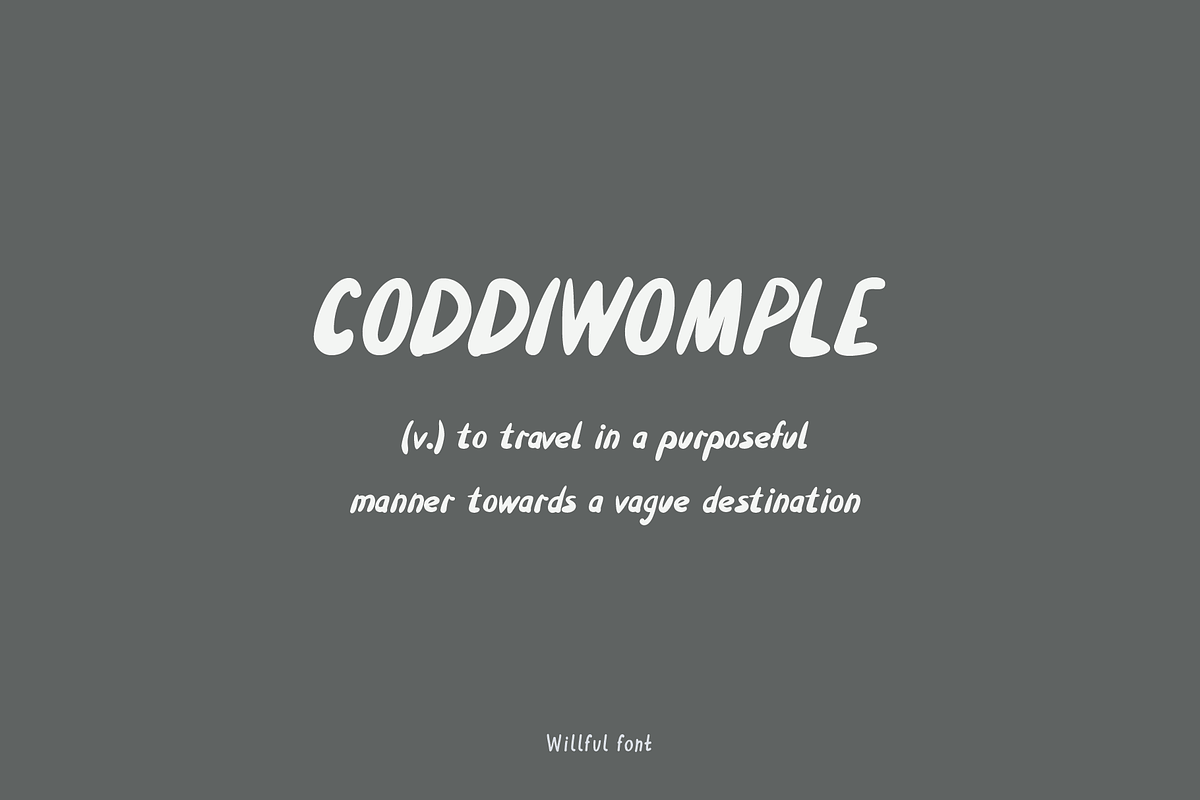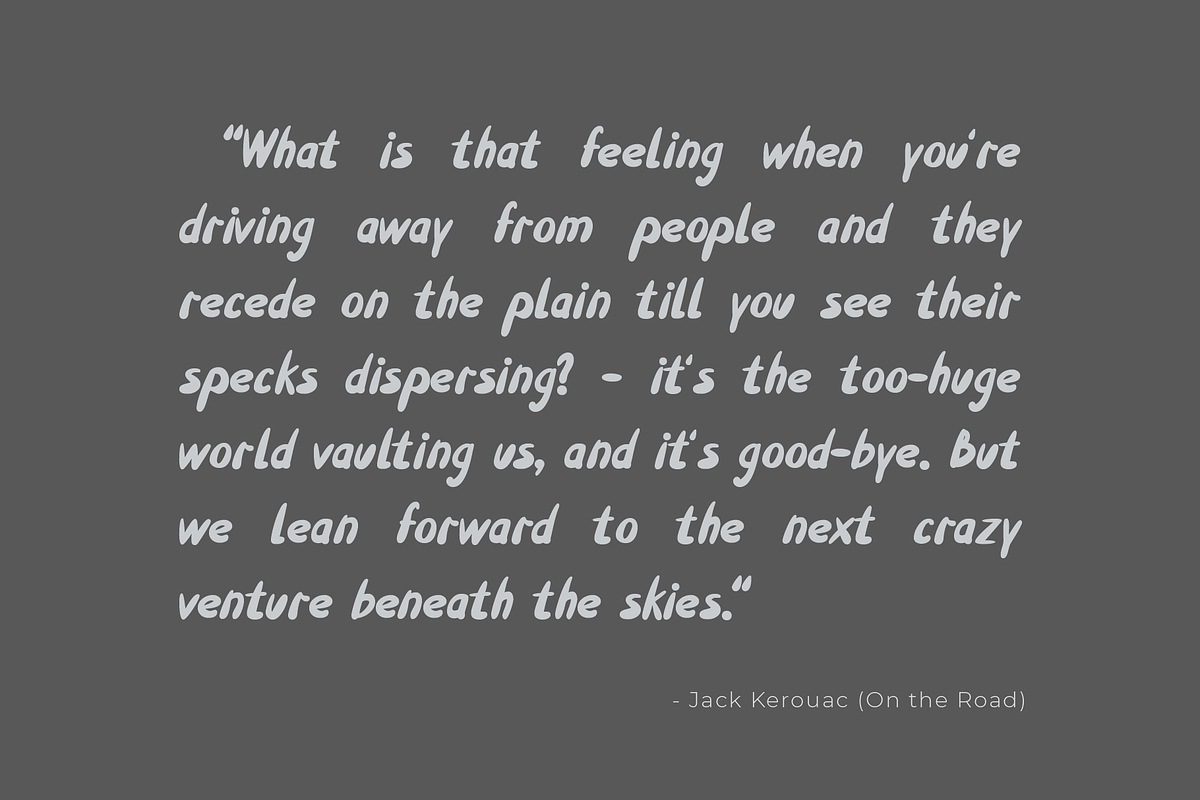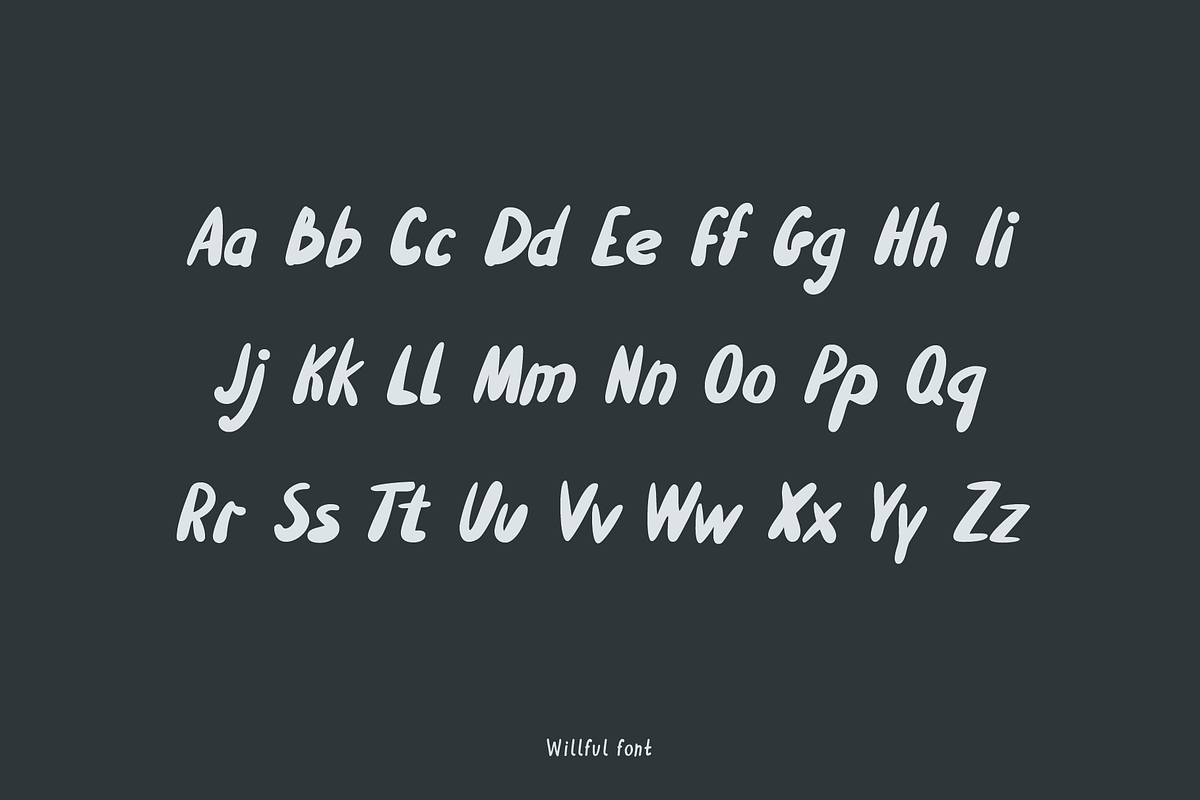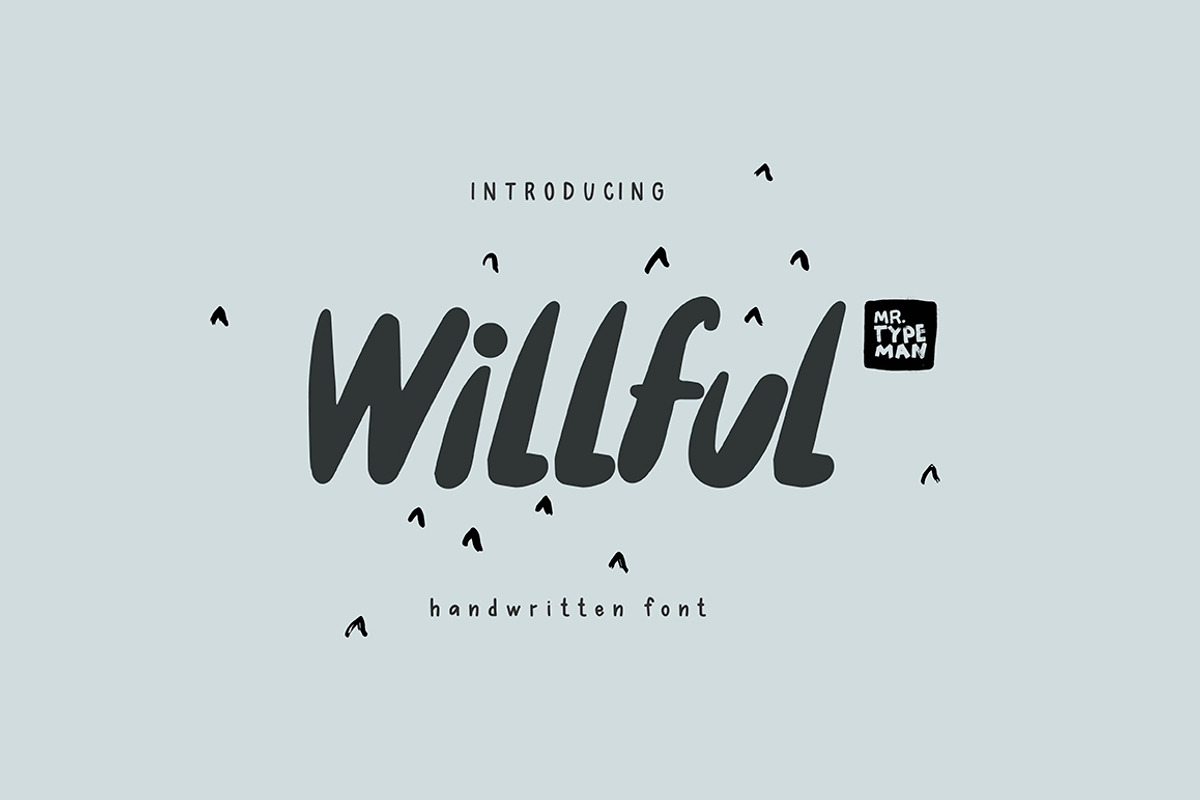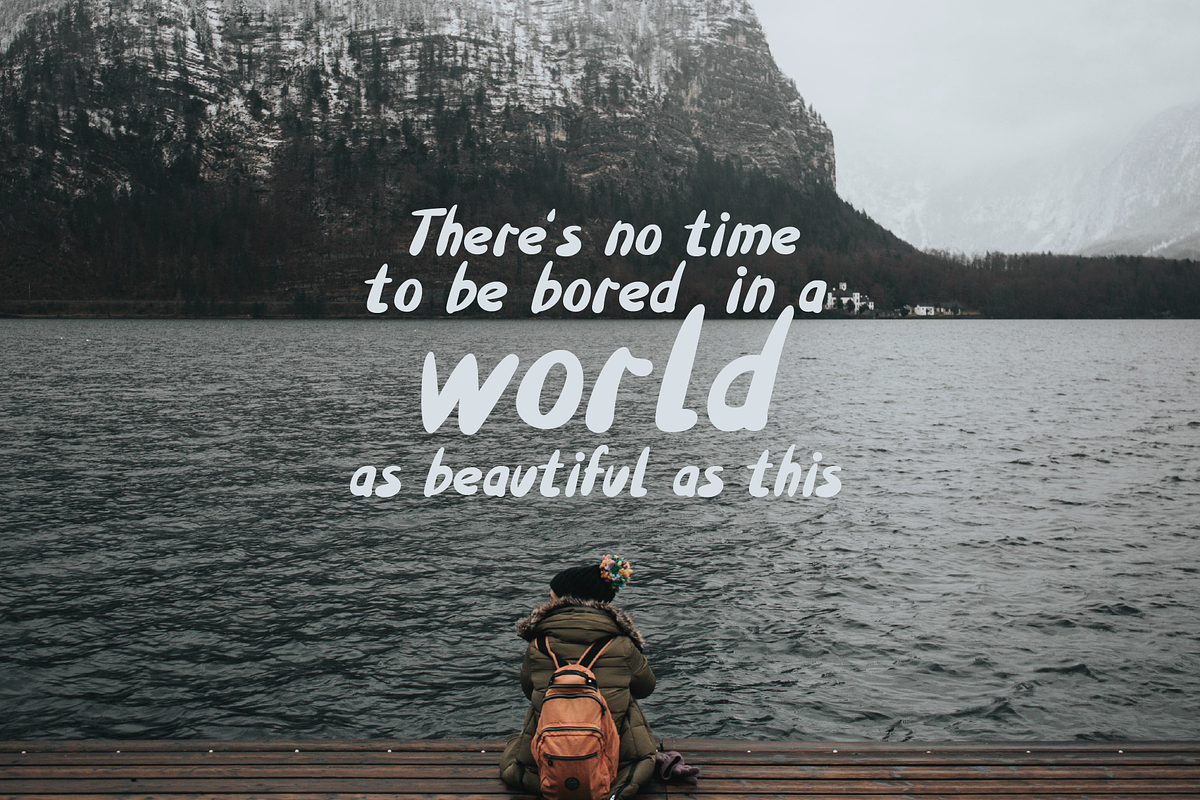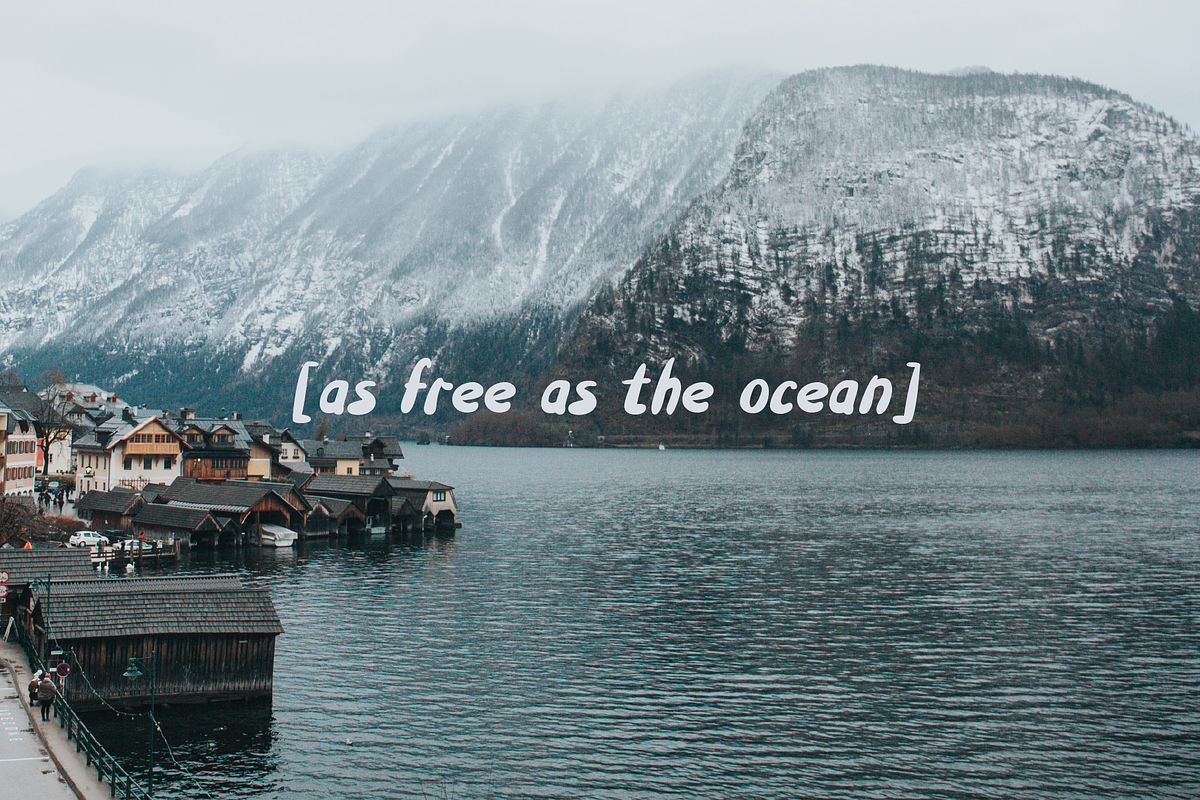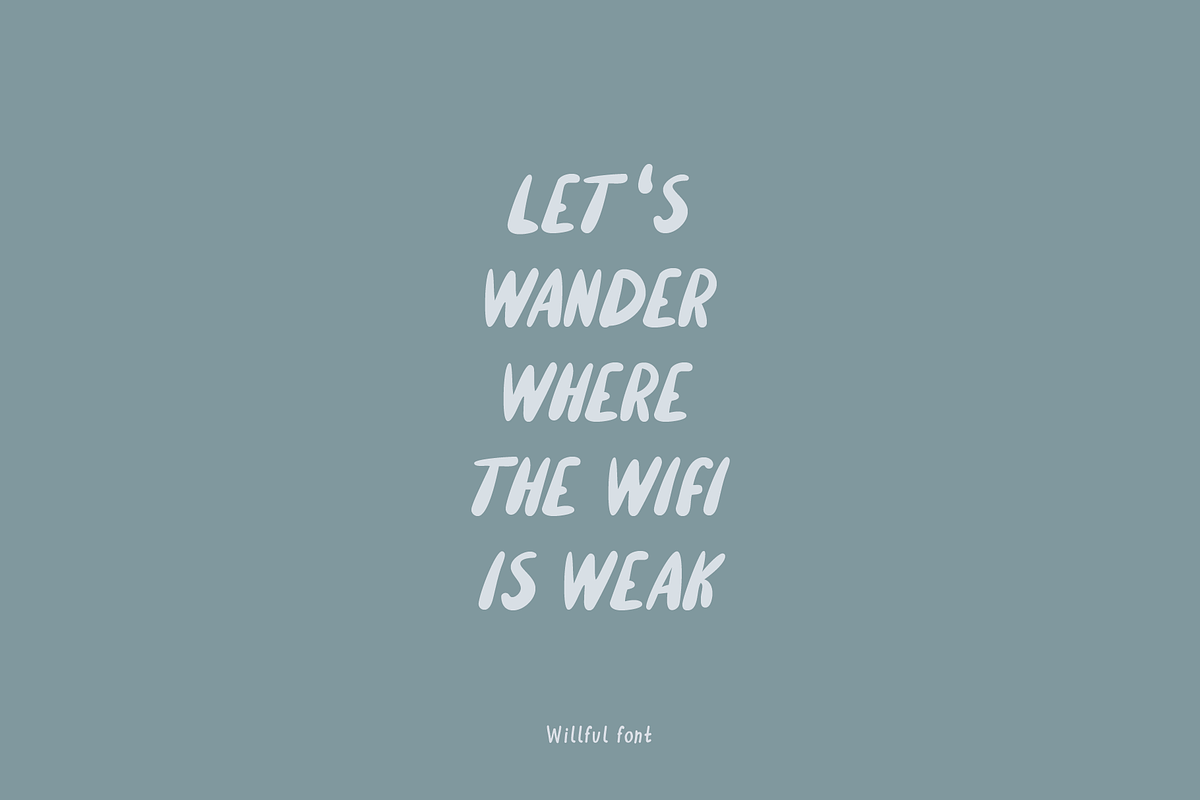
Willful Handwritten Brush Font
Willful Handwritten Brush Font by Mr.Typeman is a font selected for branding, posters, packaging, typography.
- Willful comes with Uppercase, Lowercase and Standard Punctuation.
Willful Handwritten Brush Font by Mr.Typeman fits naturally into Branding, posters, packaging, typography.